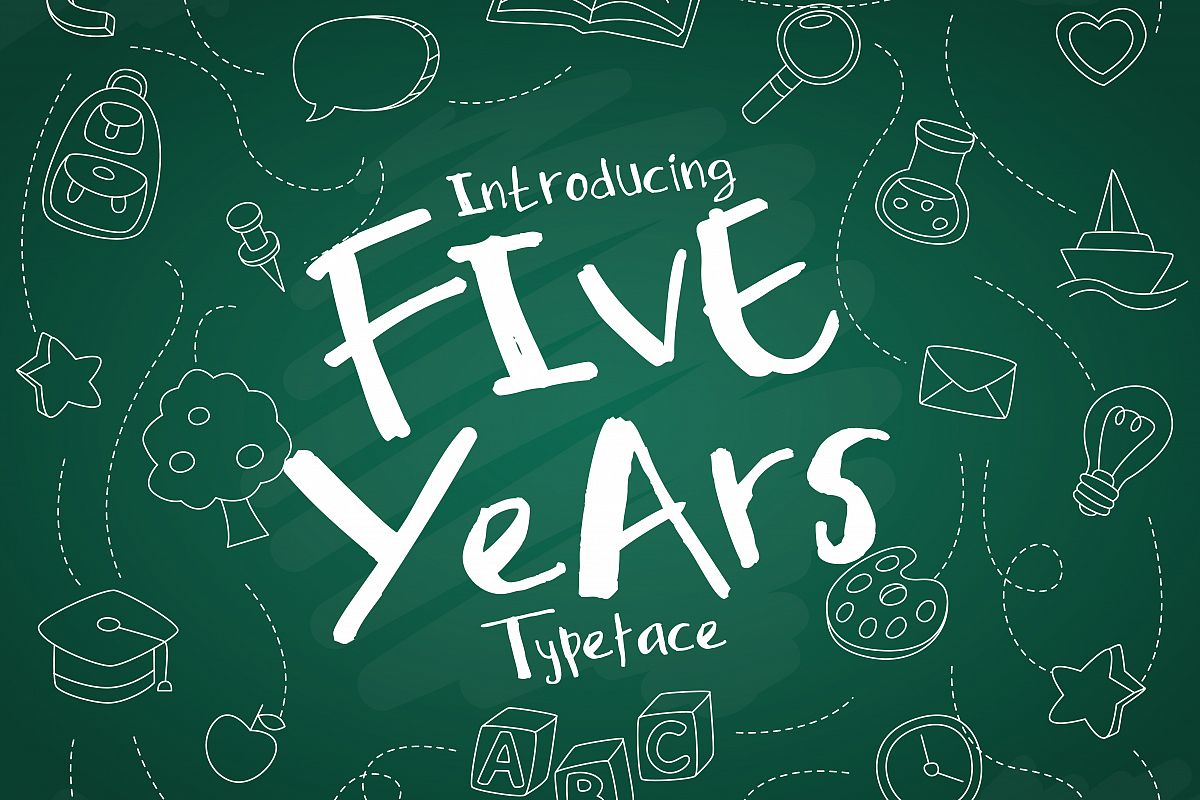
Created By Deenatype
Five Years Typeface
This typeface are 100% from handmade by 5 years Kid,
so ugly, bad kerning, non-consictency, but so catchy for your design to bring your back to school